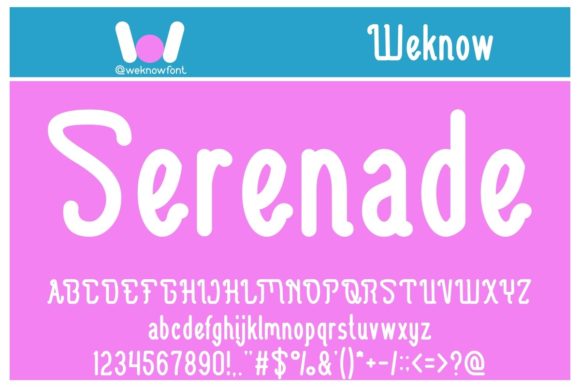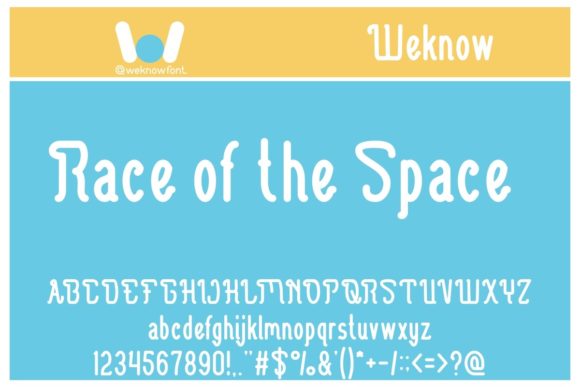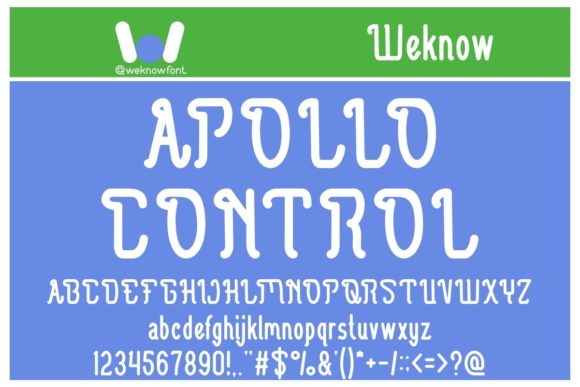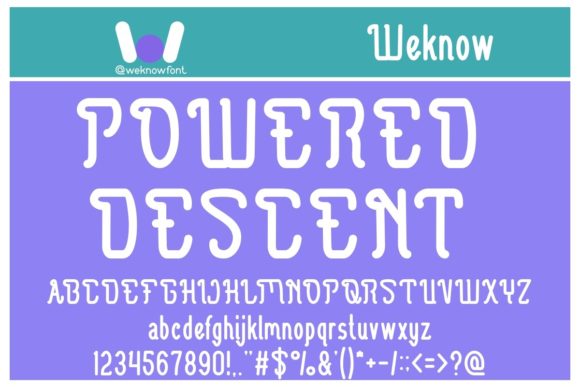
Guitar Electric Font: The Ultimate Choice for Creative Designers
Are you a designer or crafter looking for a unique and eye-catching font to elevate your creative projects? Look no further than Guitar Electric Font, a fancy and quirky handwritten font that’s perfect for a wide range of applications. In this article, we’ll explore the features and benefits of Guitar Electric Font, and show you how it can help take your designs to the next level.
What is Guitar Electric Font?
Guitar Electric Font is a carefully crafted handwritten font that’s designed to add a touch of personality and style to your designs. With its bold and quirky lines, this font is perfect for creating eye-catching logos, logotypes, headlines, and more. Whether you’re working on a corporate identity, brand identity, apparel design, or any other creative project, Guitar Electric Font is the perfect choice.
Key Features of Guitar Electric Font
- Fancy and Quirky Design: Guitar Electric Font features a unique and quirky design that’s sure to turn heads. Its bold lines and carefully crafted letterforms make it perfect for creating eye-catching designs.
- Handwritten Style: This font has a beautiful handwritten style that’s perfect for adding a personal touch to your designs.
- Versatile: Guitar Electric Font is versatile and can be used in a wide range of applications, from logos and branding to posters, magazines, and more.
- Easy to Read: Despite its bold and quirky design, Guitar Electric Font is easy to read, making it perfect for use in headlines, titles, and other design elements.
Use Cases for Guitar Electric Font
Guitar Electric Font is perfect for a wide range of creative projects, including:
- Logo Design: Create a unique and eye-catching logo for your brand or business with Guitar Electric Font.
- Branding and Identity: Use Guitar Electric Font to create a consistent brand identity across all your marketing materials.
- Apparel Design: Add a touch of personality to your apparel designs with Guitar Electric Font.
- Poster Design: Create eye-catching posters for movies, games, music events, and more with Guitar Electric Font.
- Magazine and Book Design: Use Guitar Electric Font to add a touch of style to your magazine or book designs.
- Social Media: Use Guitar Electric Font to create eye-catching social media graphics for YouTube, Instagram, and more.
- Web Design: Add a touch of personality to your website designs with Guitar Electric Font.
Why Choose Guitar Electric Font?
There are many fonts to choose from, but Guitar Electric Font stands out from the rest. Here are just a few reasons why:
- Unique Design: Guitar Electric Font has a unique and quirky design that’s sure to turn heads.
- High-Quality: This font is carefully crafted to ensure high-quality and clear letterforms.
- Versatile: This font can be used in a wide range of applications, making it a great value for designers.
If you’re looking for a unique and eye-catching font to elevate your creative projects, look no further than Guitar Electric Font. With its fancy and quirky design, handwritten style, and versatility, this font is perfect for designers and crafters of all levels. Whether you’re working on a logo, branding, apparel, or any other creative project, Guitar Electric Font is the perfect choice. So why wait? Download Guitar Electric Font today and take your designs to the next level!